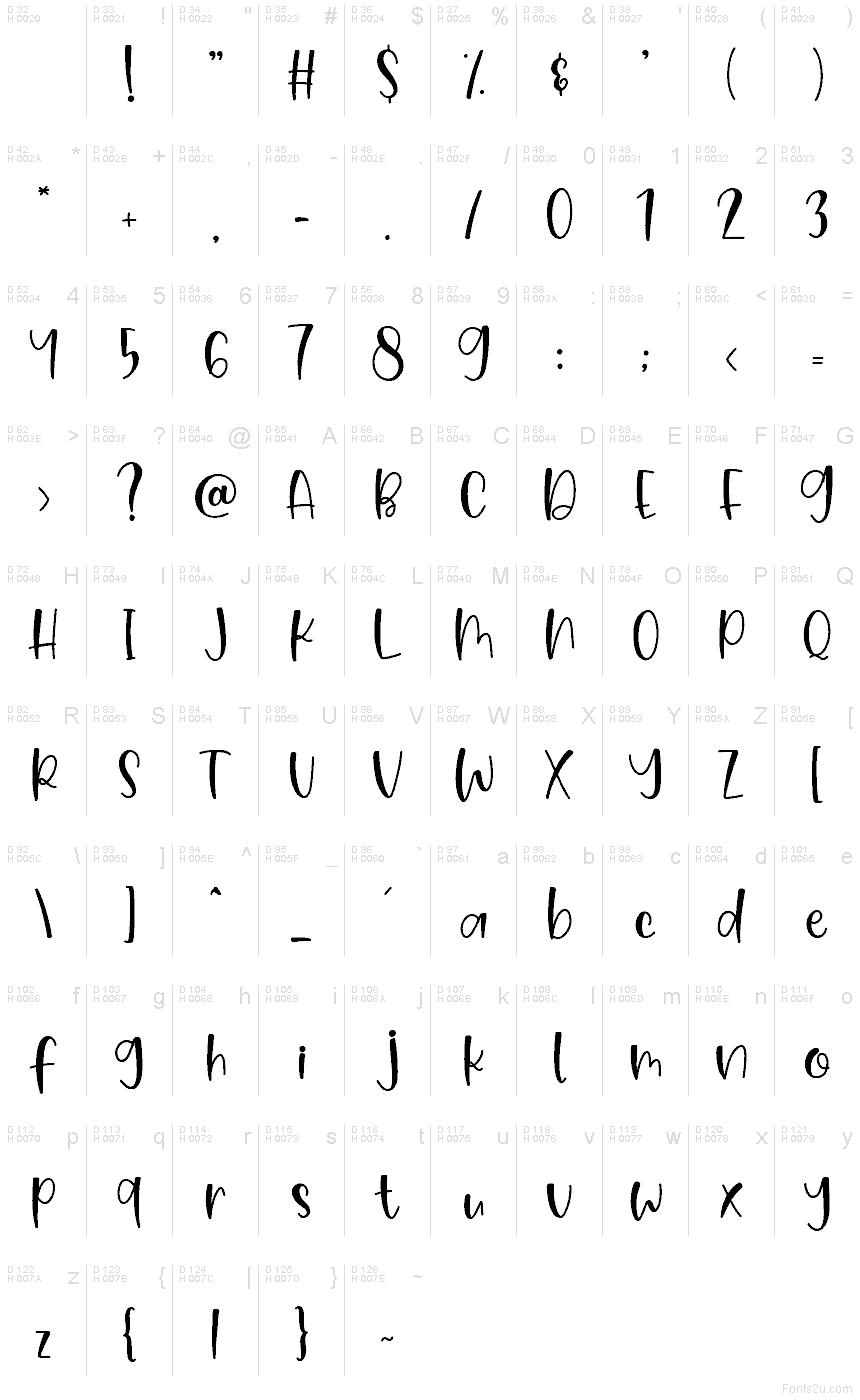
Cutie Brown
Cutie Brown font by Dm Letter Studio - Dimas Prasetyo is a free script font. Many brush scripts swing too wild or read too stiff; this one lands in the sweet spot with an upbeat bounce, open counters, and steady spacing. Inky downstrokes meet slim, airy upstrokes, and the subtle dry-brush grain gives warmth without turning muddy, so titles stay crisp even at smaller sizes.
Using Cutie Brown, you’ll get friendly impact for bakery packaging, birthday invitations, quote graphics, craft logos, Instagram stories, event signage, and kids’ merchandise. This free font shines when you let it breathe—set it larger with a touch of extra leading. Pair it with a clean geometric sans for body text to keep the message clear and charming.